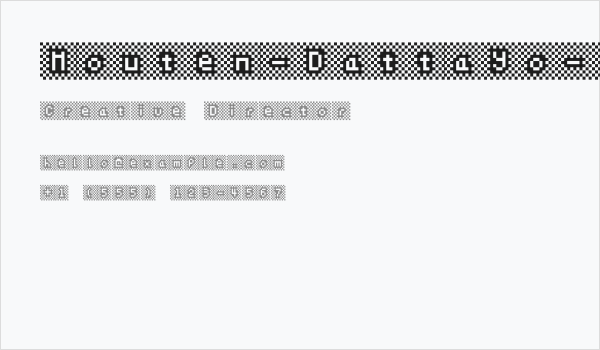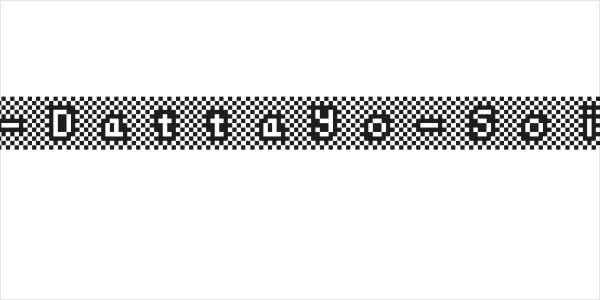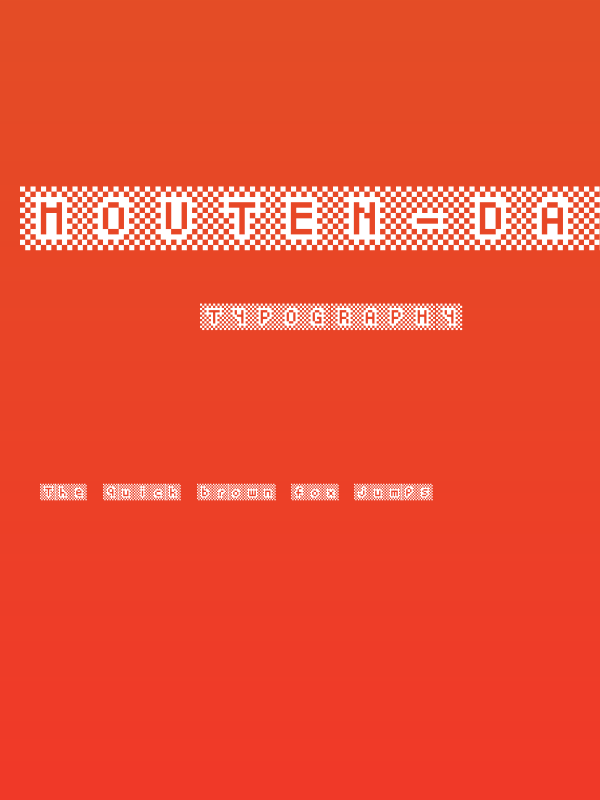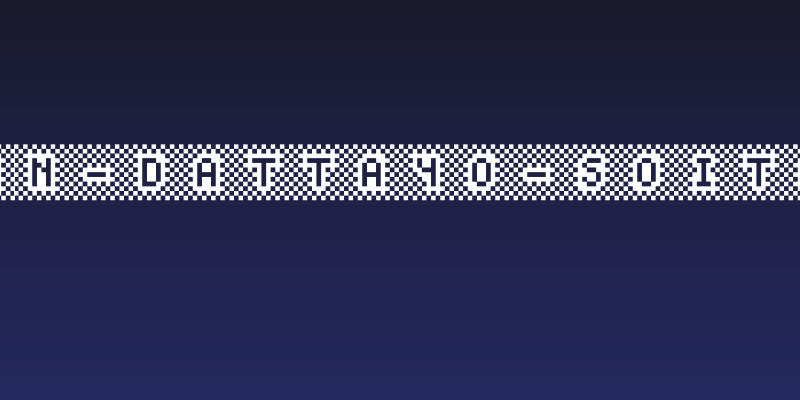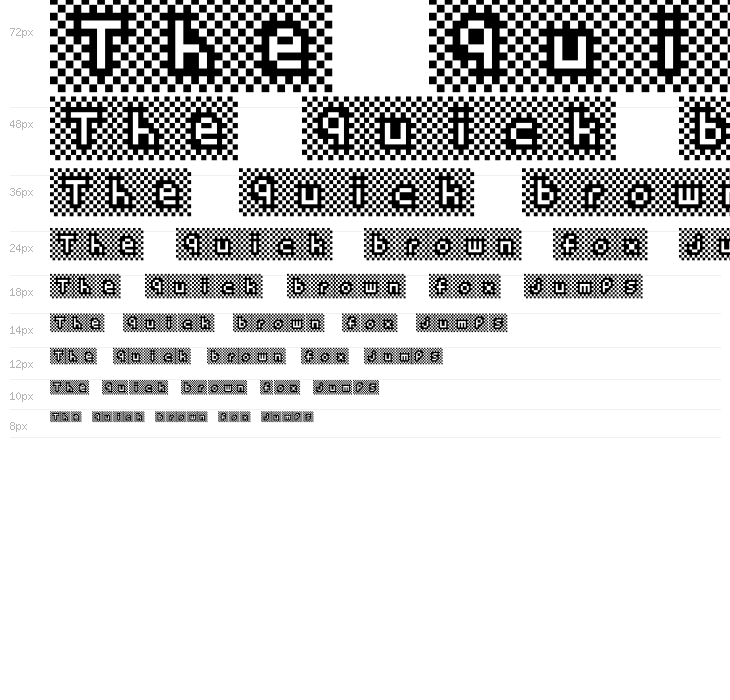
Mouten-Dattayo-Soitsu-Wa Font
Mouten-Dattayo-Soitsu-Wa Description
This font features a pixelated, grid-like design reminiscent of early digital displays and retro video games. Each character is constructed with a uniform pattern of black and white squares, creating a distinct, blocky appearance. The uppercase and lowercase letters maintain a consistent height, contributing to a monospaced feel. Numbers and special characters follow the same pixelated style, ensuring a cohesive look across all glyphs. The font's geometric nature gives it a modern yet nostalgic vibe, making it suitable for projects that aim to evoke a sense of classic digital aesthetics.
| Overall Style | Retro, Digital |
| Use Case | Logos, Headlines, Digital Art |
| Proposed Projects | Ideal for retro video game designs, digital art projects, and any creative work that seeks to capture a vintage digital aesthetic. |